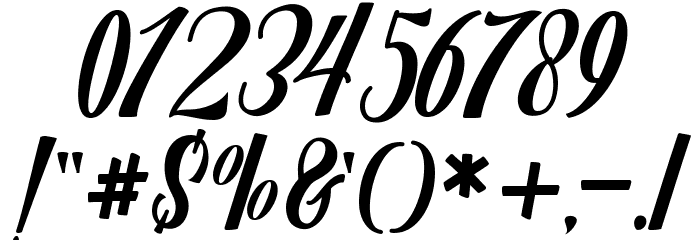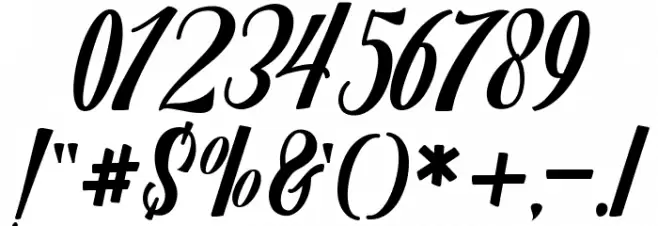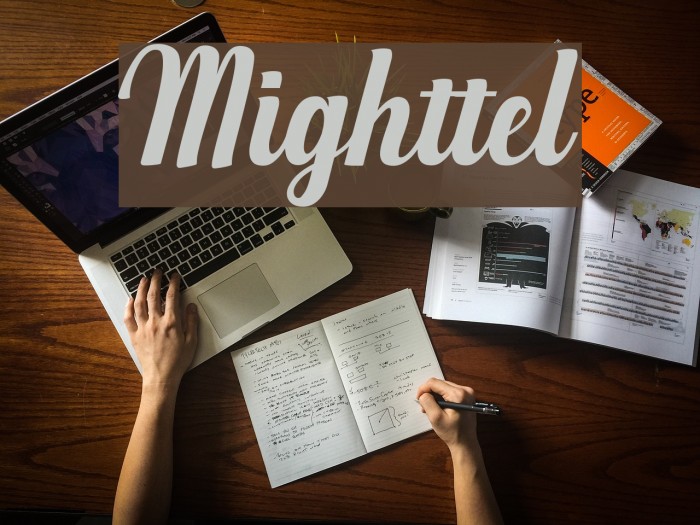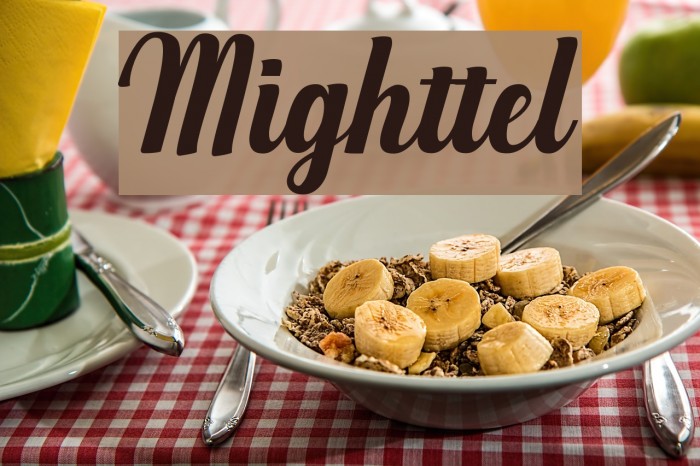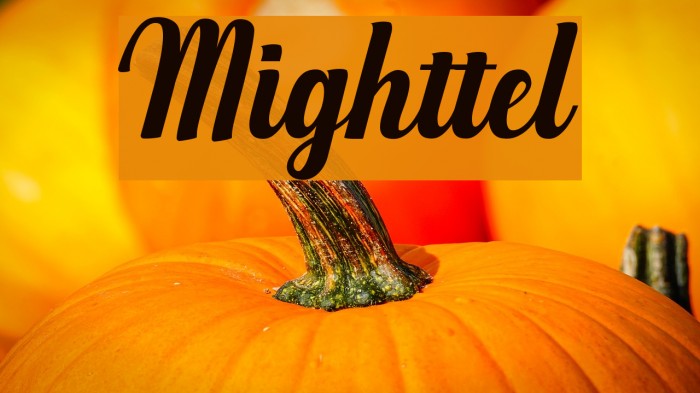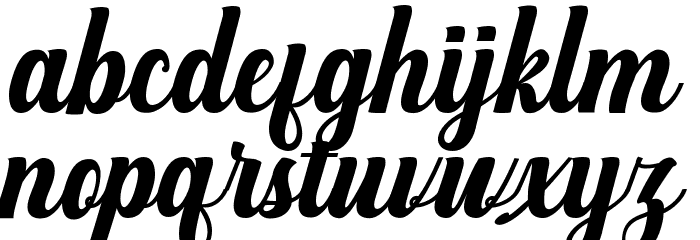
Mighttel Font
This font features a bold and expressive script style with a strong emphasis on fluidity and elegance. The uppercase letters are characterized by their sweeping curves and dynamic slants, creating a sense of movement and sophistication. The lowercase letters maintain a consistent flow, enhancing readability while retaining an artistic flair. Numbers and special characters are designed to complement the overall aesthetic, ensuring versatility across various applications. The font's bold weight and high contrast between thick and thin strokes contribute to its striking appearance, making it suitable for impactful designs.
A bold, expressive script font with sweeping curves and high contrast.
• Proposed Projects: Ideal for branding, invitations, packaging, and editorial design where a touch of elegance and flair is desired.
• Category: Script
• Bold: Yes
• Italic: No
• Weight: Bold
• Width: Normal
• Character Spacing: Normal
• Contrast: High
• Overall Style: Decorative
• Use Case: Logos, Headlines, Invitations